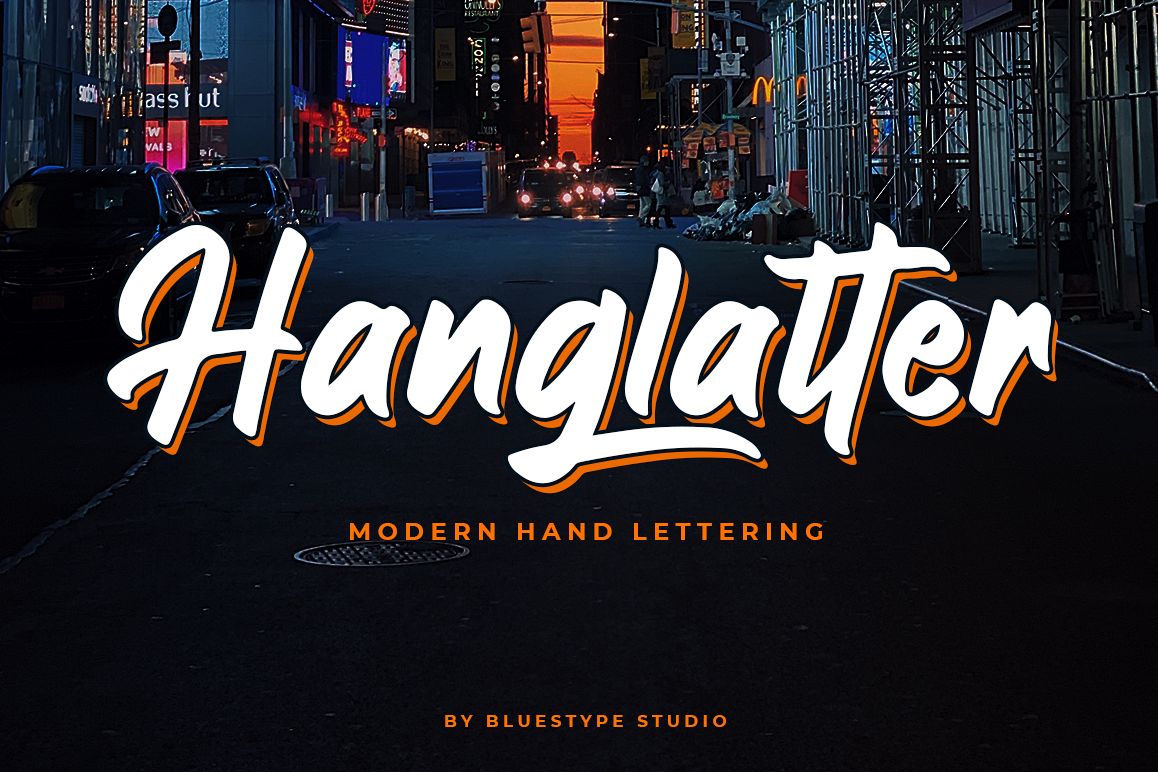
Hanglatter - Modern Calligraphy
Hanglatter
This is our latest product called Hanglatter. Hanglatter is a modern calligraphy with beautiful and cool curves.
This font is suitable for t-shirt designs, logos, magazines, quotes, fashion, watermarks, invitations, cover.